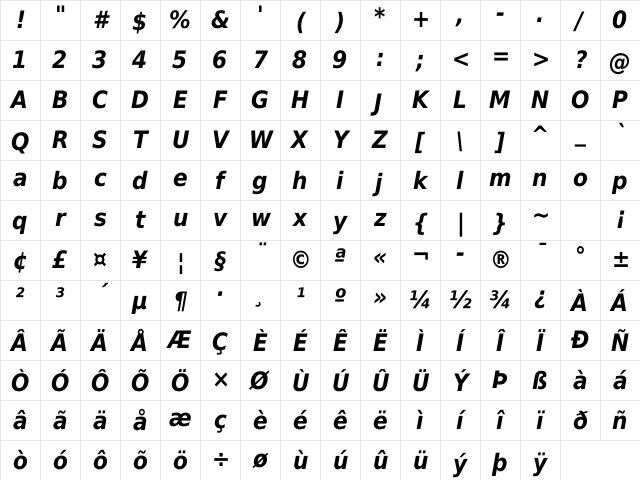
Complete DejaVu Sans Condensed Bold Oblique glyph index. Displaying only characters natively supported by DejaVu Sans Condensed Bold Oblique font.
DejaVu Sans Condensed is a composed and adaptable typeface that performs quietly and consistently across a wide range of design contexts. The slanted form adds forward momentum and visual energy. Its bold stroke weight gives it real presence on the page. Its narrow stance lets it pack a punch even in space-constrained designs.
Pro Tip: Use DejaVu Sans Condensed for emphasis, pull quotes, and subheadings where its slanted energy can add rhythm to the layout.